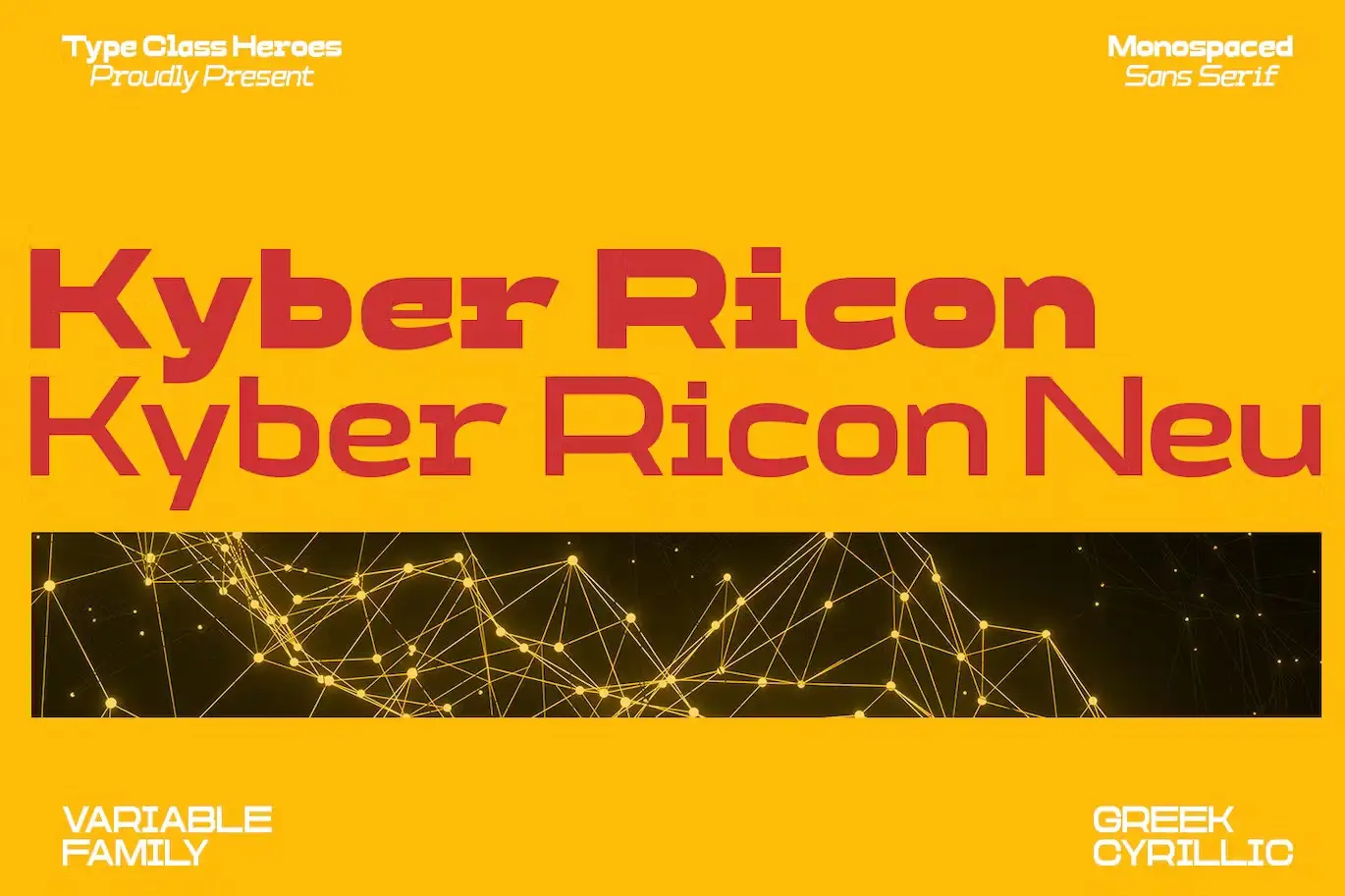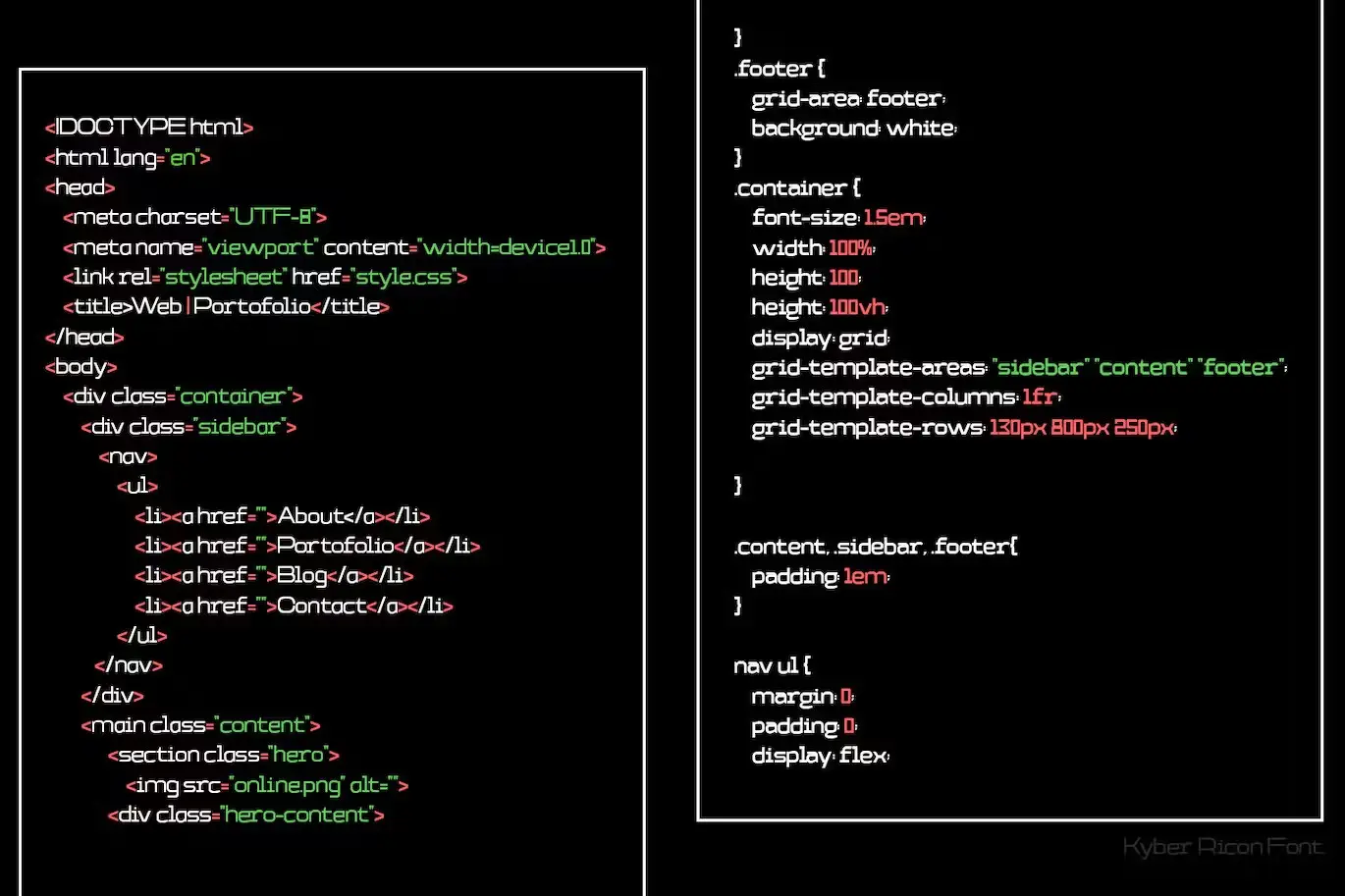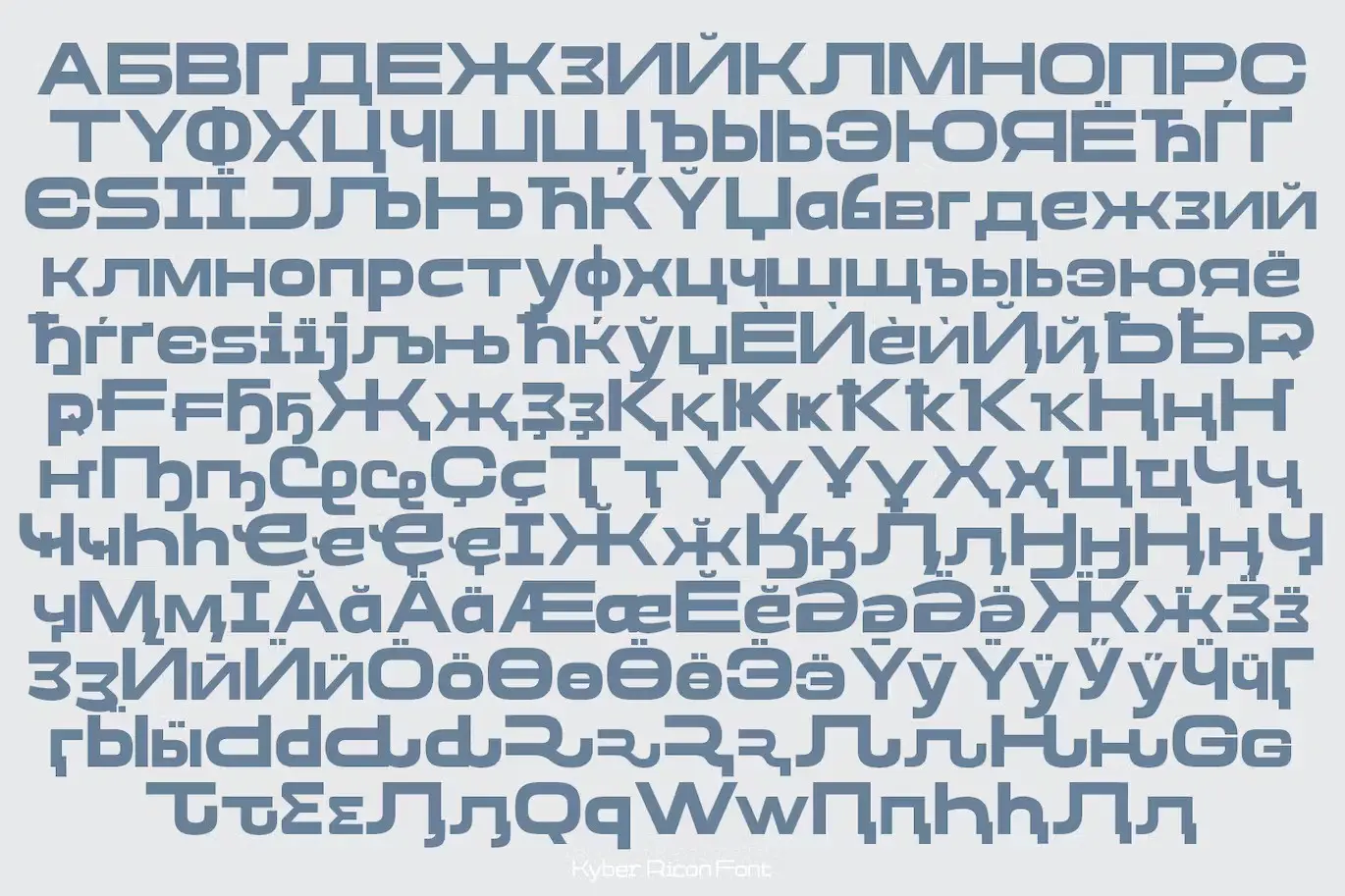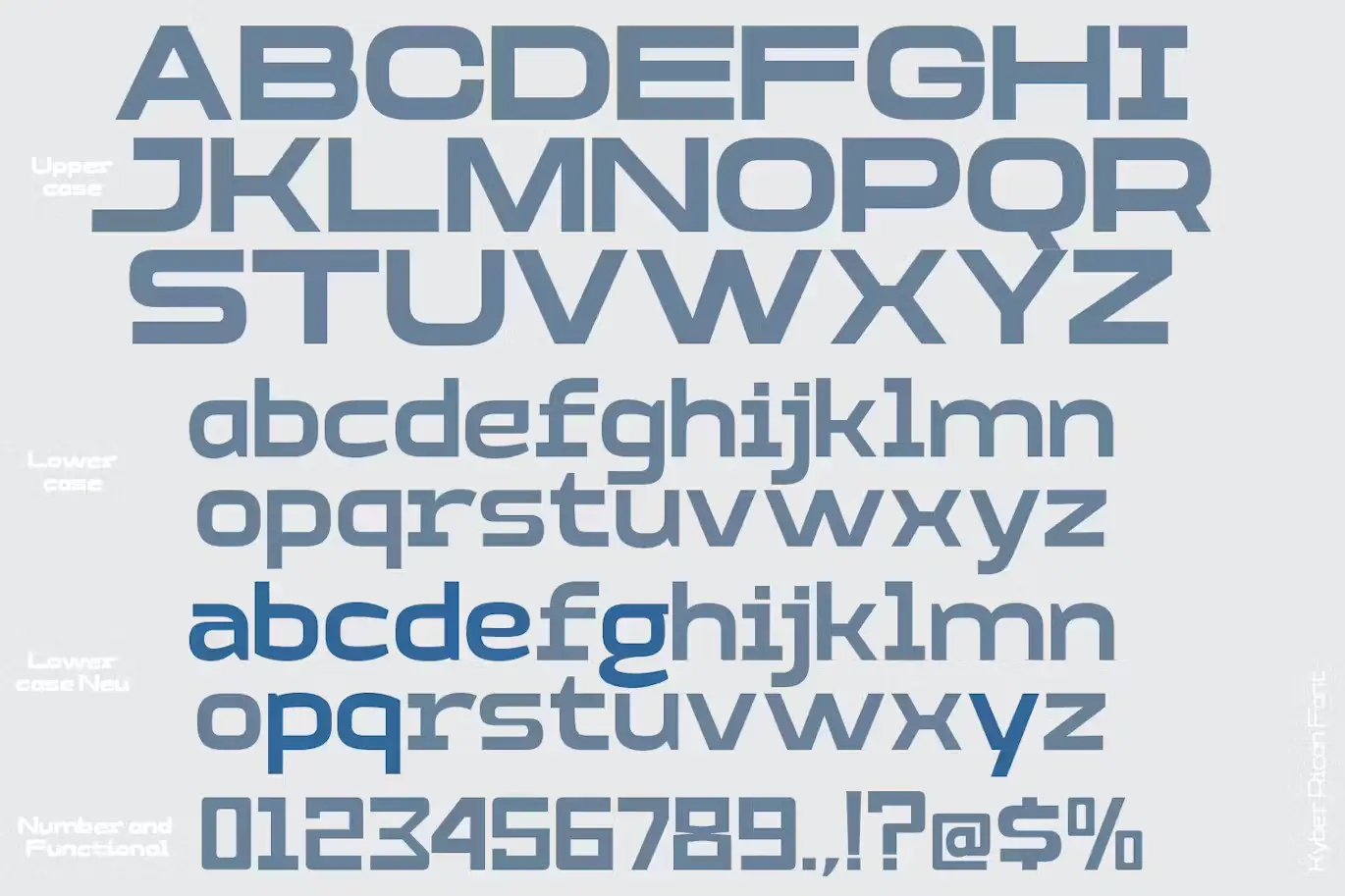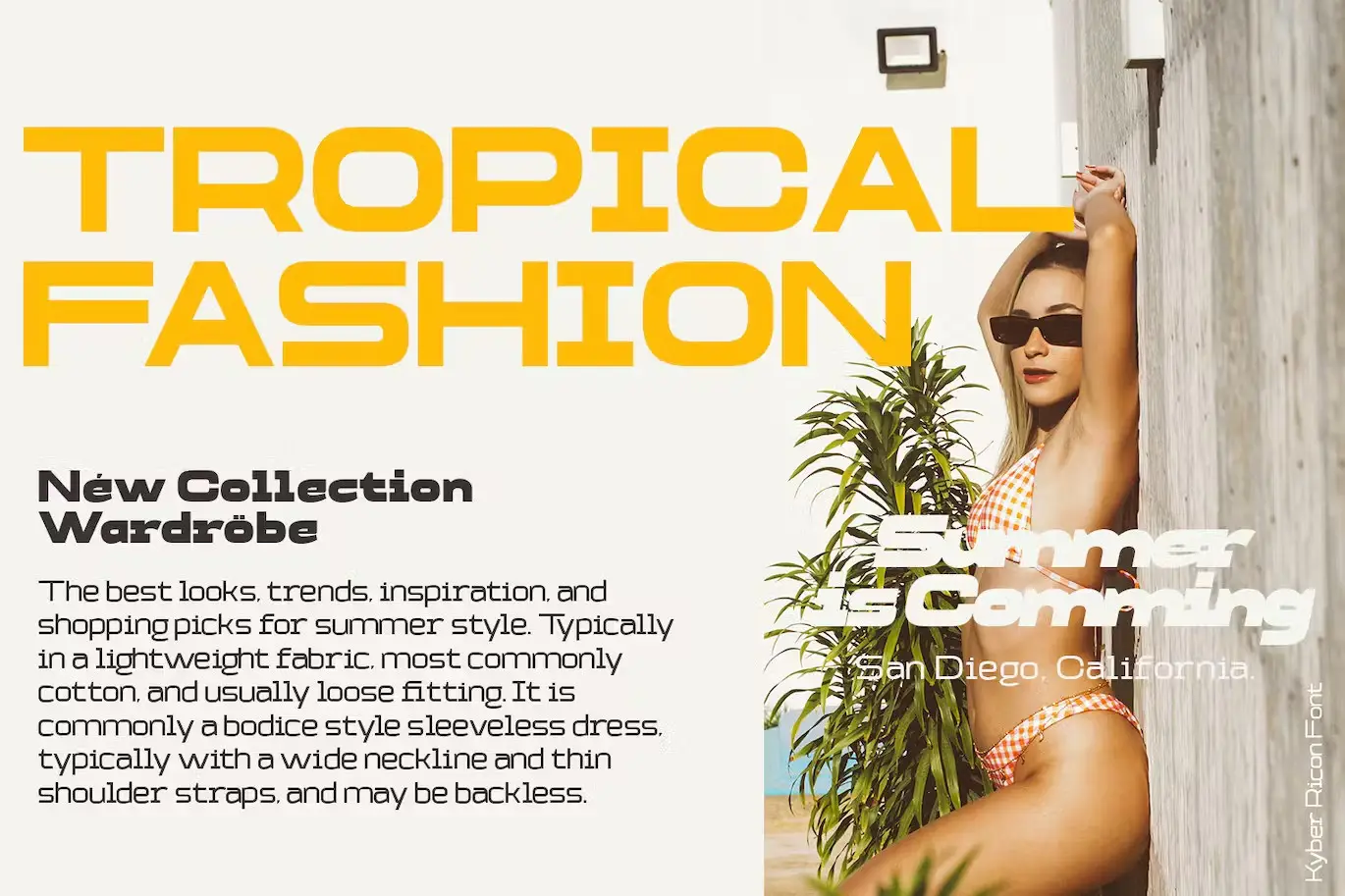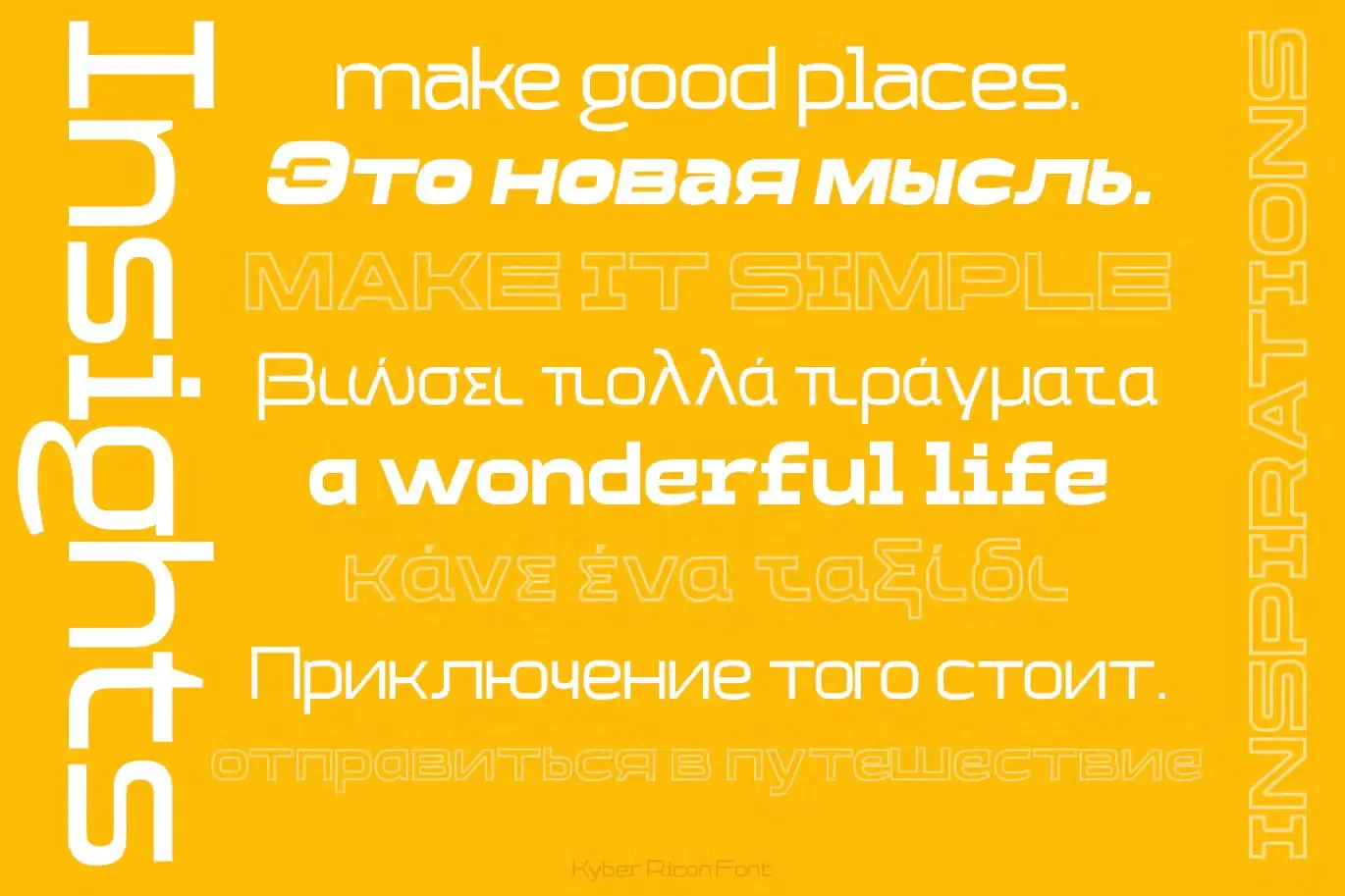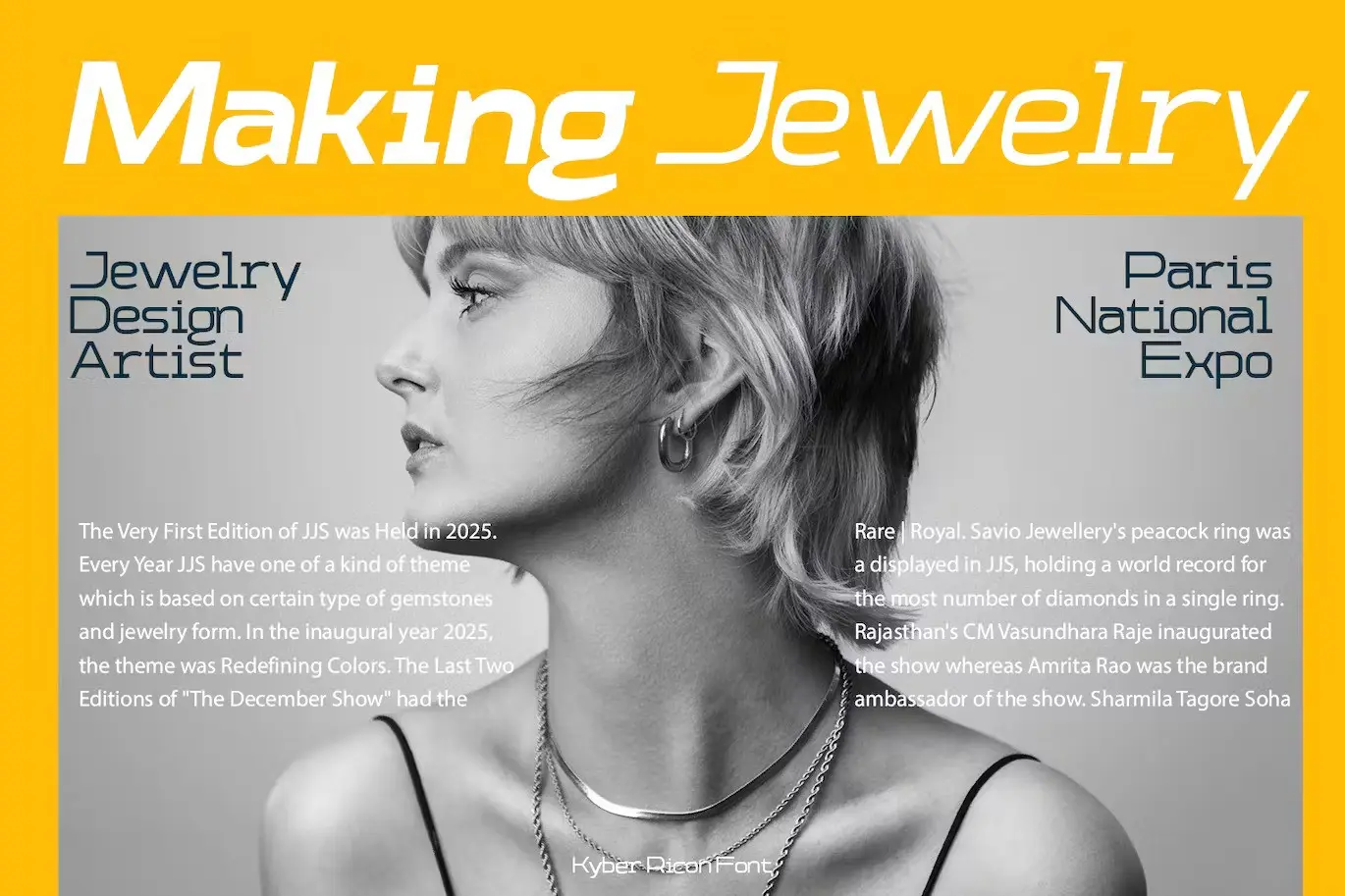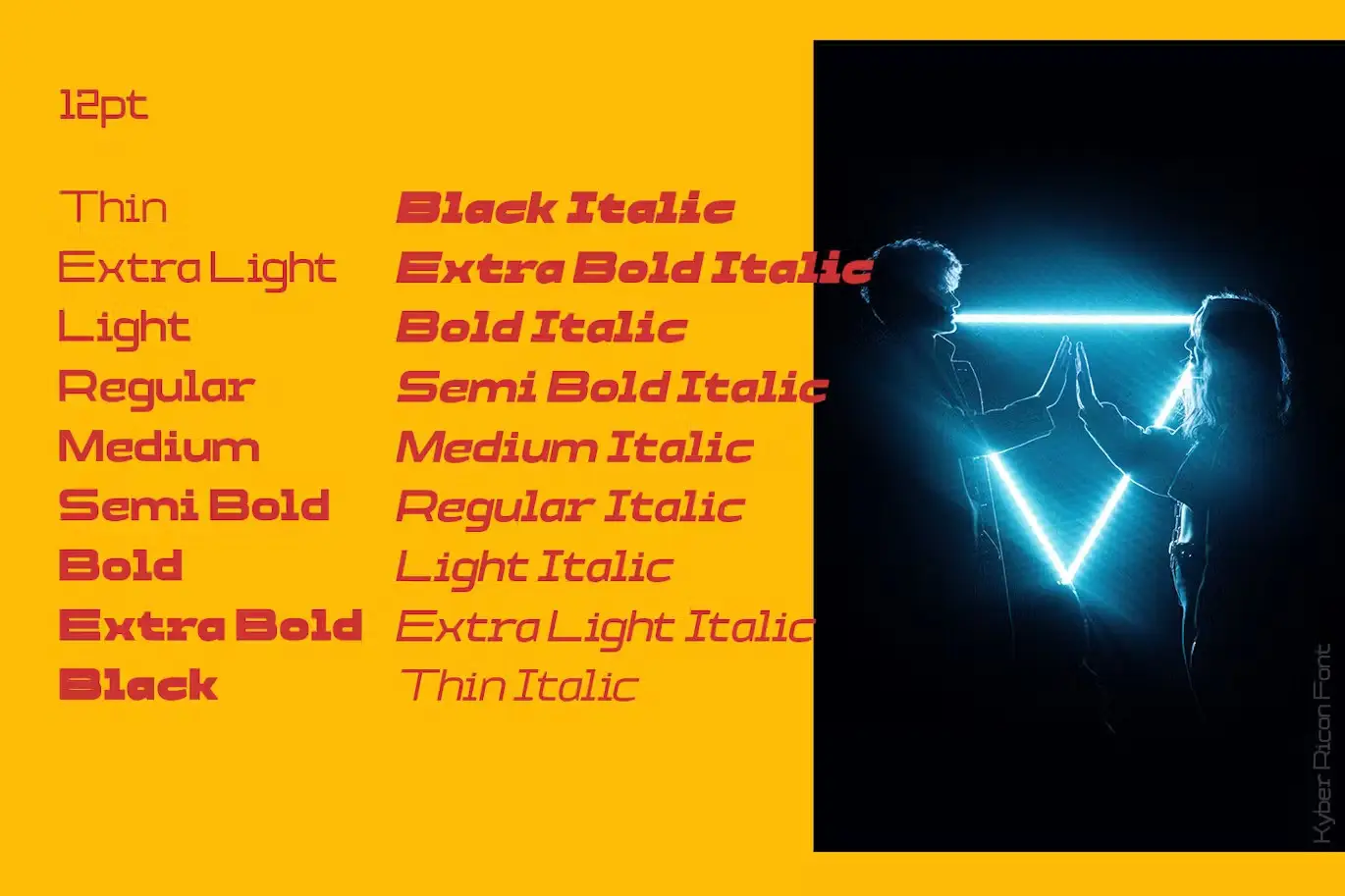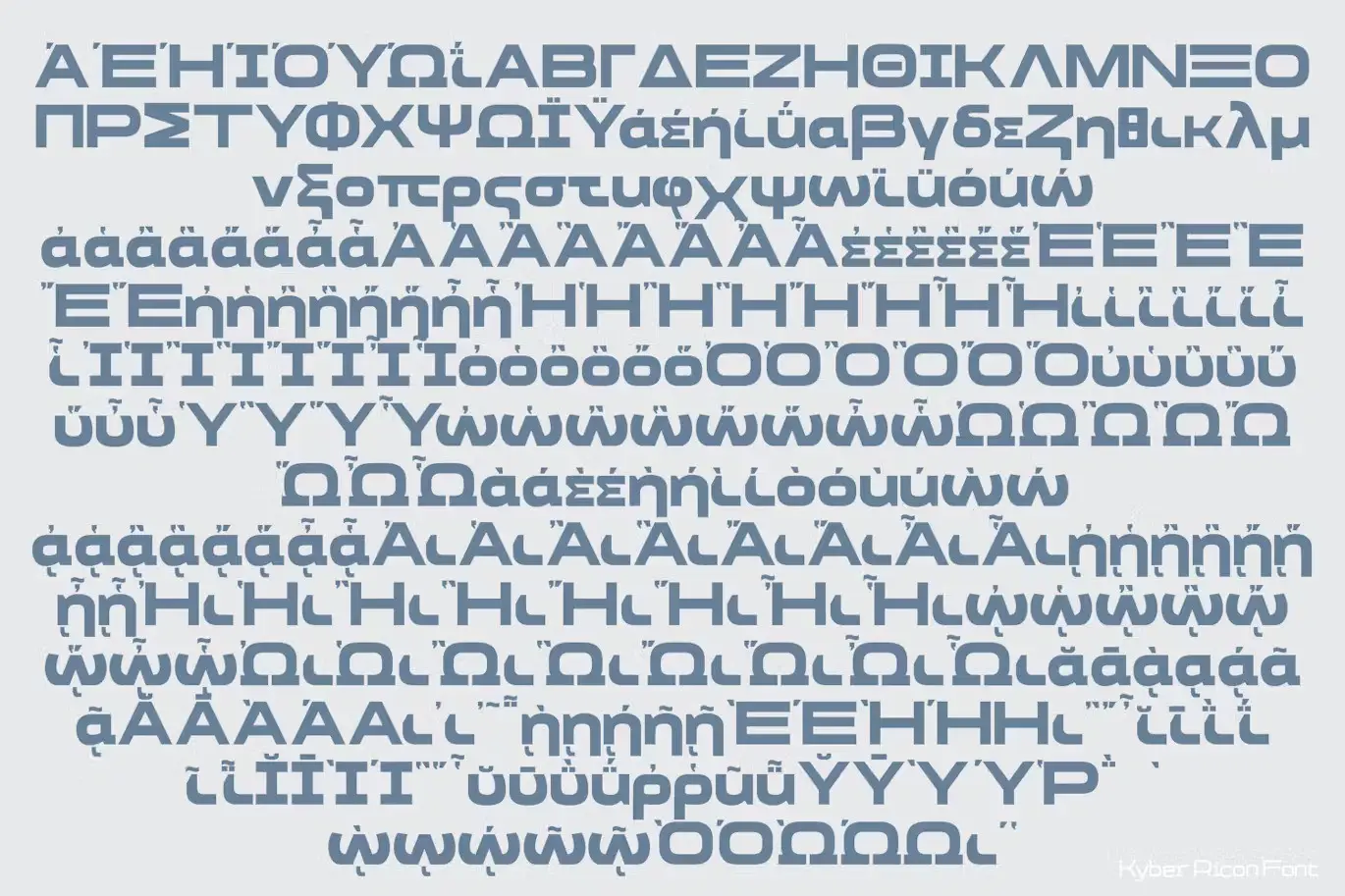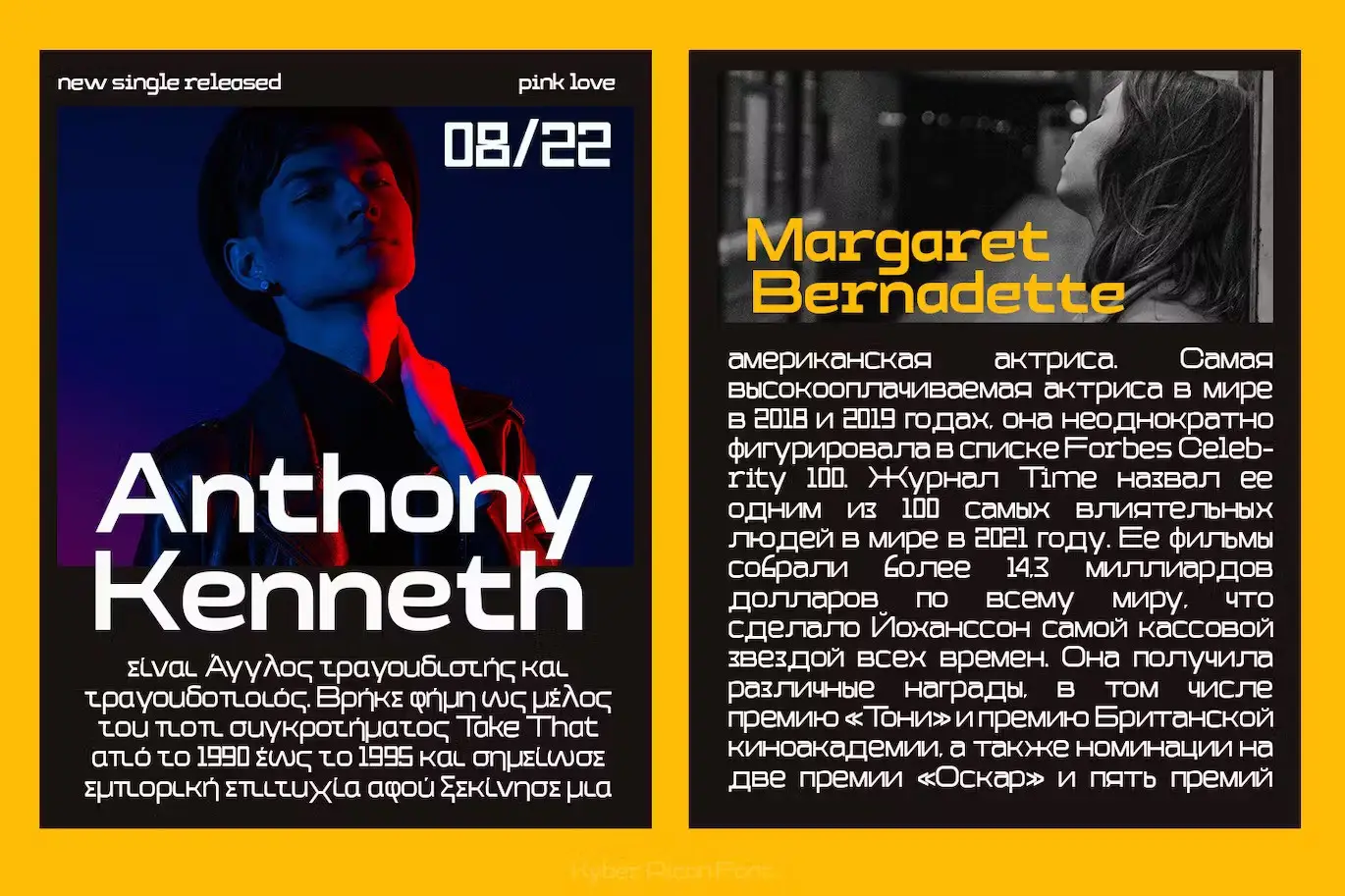
Kyber Ricon – Versatile Monospaced Font Family
Discover the Kyber Ricon Font Family, a beautifully crafted monospaced sans serif typeface designed for modern readability. With multiple widths and weights, this font family allows you to create rhythm and texture in your designs, making it perfect for both digital and print applications.
Kyber Ricon features a unique blend of style and functionality, supporting over 400 Latin-based languages along with extensive Cyrillic and Greek character sets. Whether you’re working on branding, editorial design, or web projects, this font family provides the versatility you need to enhance your creative work.
- ✅ Multiple Weights & Widths → Tailor your designs with various styles for a unique look.
- ✅ Extensive Language Support → Perfect for multilingual projects with support for Cyrillic and Greek.
- ✅ Variable Font Version → Enjoy flexibility in design with adjustable weights and widths.
- ✅ Comprehensive Glyph Set → Includes uppercase, lowercase, numbers, symbols, and international glyphs.
- ✅ Ideal for Various Applications → Suitable for branding, headlines, magazines, and more.
Kyber Ricon stands out with its playful yet professional aesthetic, making it a favorite among designers. Its adaptability across various platforms ensures that your projects maintain a cohesive and engaging visual identity. Trusted by creatives worldwide, this font family is a reliable choice for anyone looking to elevate their design work.
| Font Type | Monospaced Sans Serif |
| Language Support | Latin, Cyrillic, Greek |
| Styles | Multiple Weights & Widths |
- Designers looking for versatile font options
- Branding projects
- Editorial and magazine layouts
- Web design and development
To get the most out of the Kyber Ricon Font Family, experiment with different weights and widths to find the perfect combination for your project. Utilize the variable font features to create dynamic typography that adapts to your needs.